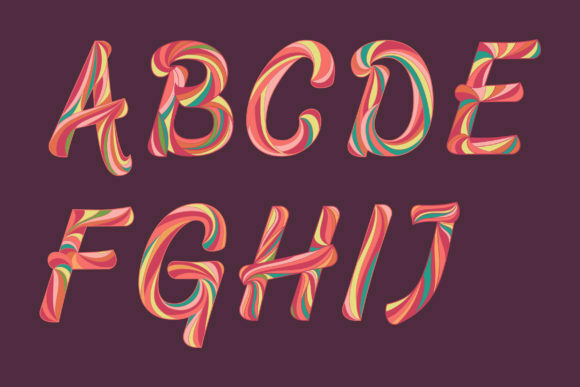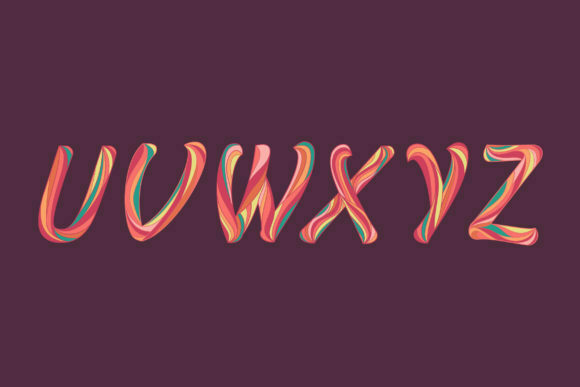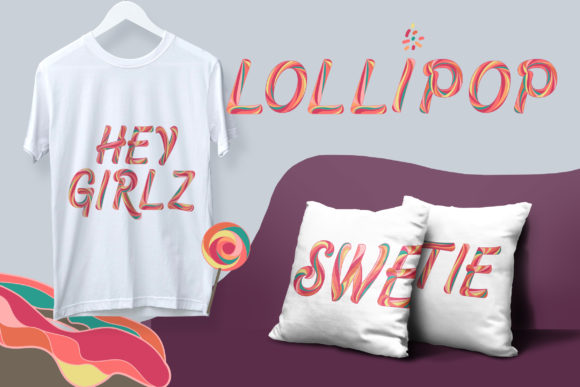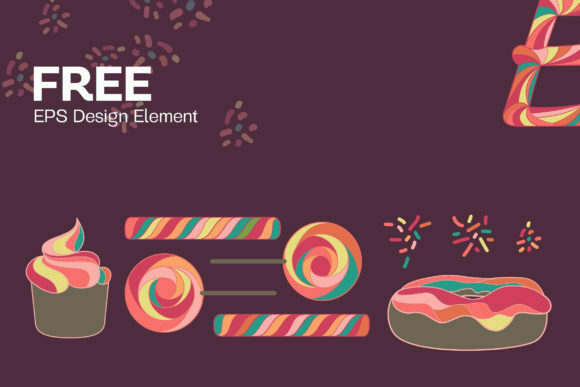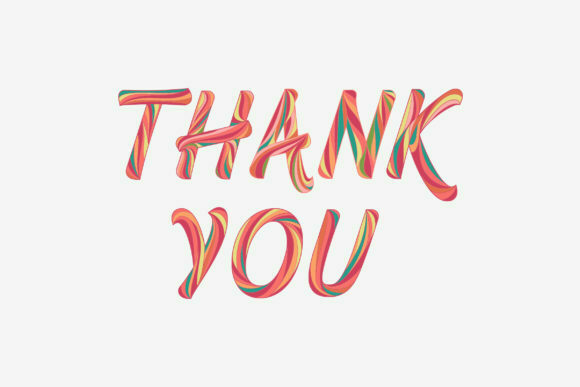
Asteria Font
About Asteria Font
Asteria is an enchanting and playful color font that will add a touch of whimsy to your children’s activities or school projects. With its vibrant colors and friendly design, Asteria captures the essence of fun and authenticity.
Whether you’re creating educational materials, worksheets, posters, or any other project targeted towards children, Asteria is an ideal choice. Its lively and expressive characters will engage young minds and bring a sense of joy to the learning process.
The versatility of Asteria allows it to be used across various subjects and themes. From language arts to science, math, and beyond, this font can bring a playful and inviting atmosphere to any educational setting.